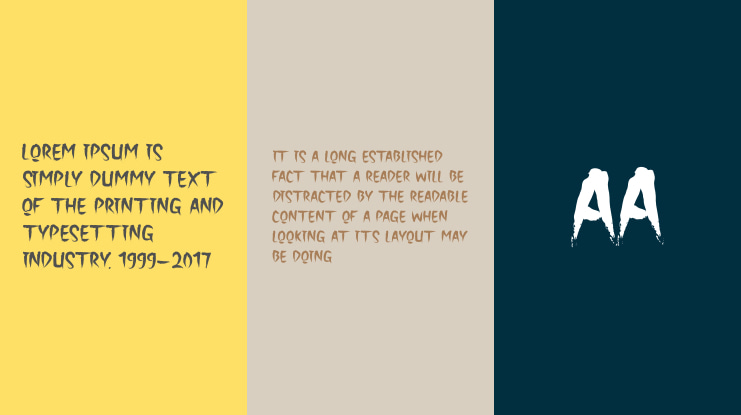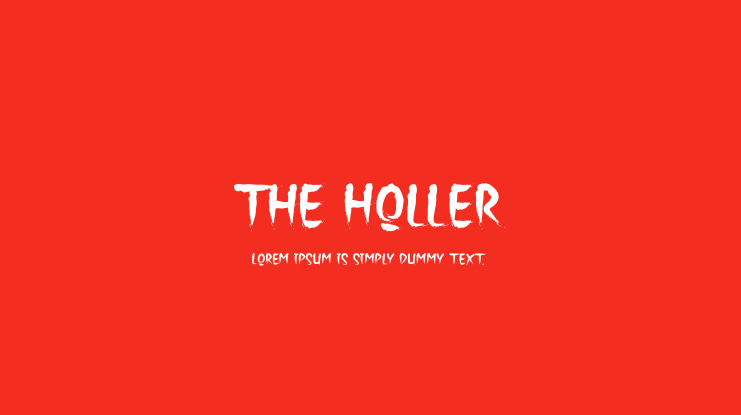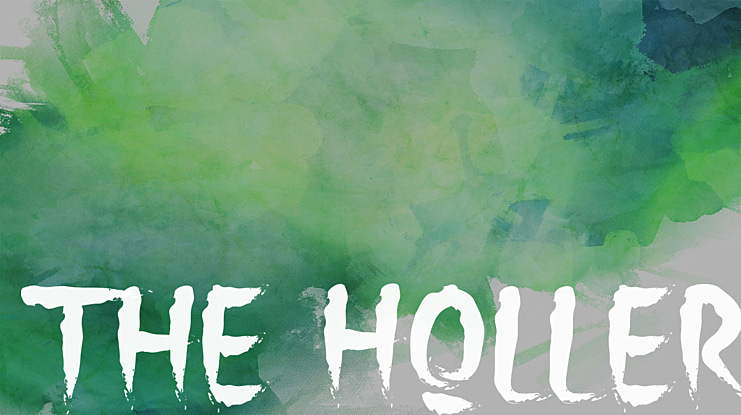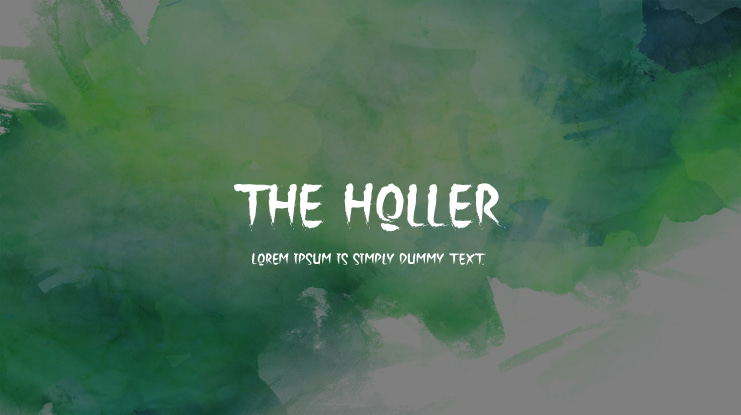
The Holler Font
Introducing The Holler Font with a scary Halloween theme. Masterfully designed to become a true favorite, this font has the potential to bring each of your creative ideas to the highest level